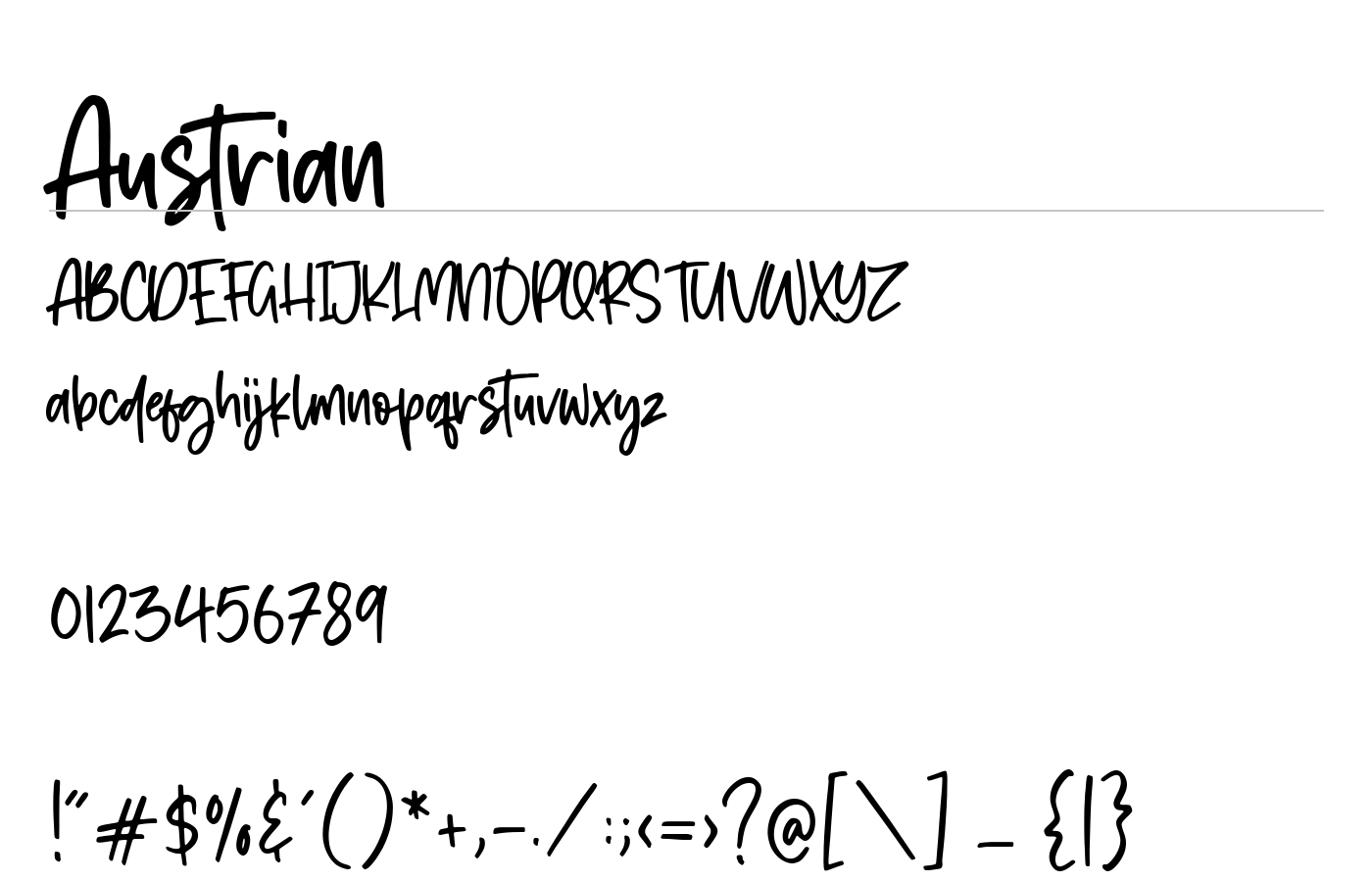
Austrian is a lively handwritten script font with a casual and friendly vibe, featuring medium weight and tall, narrow letterforms that convey energy and playfulness. Its slightly irregular strokes and natural flow make it perfect for creative projects, informal branding, and personal designs that want to feel approachable and authentic. This font works well for logos, posters, and social media graphics where a personal, handmade touch is desired.
Austrian Font
About Austrian Font